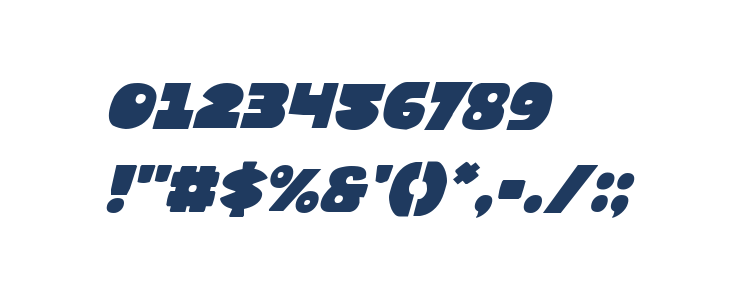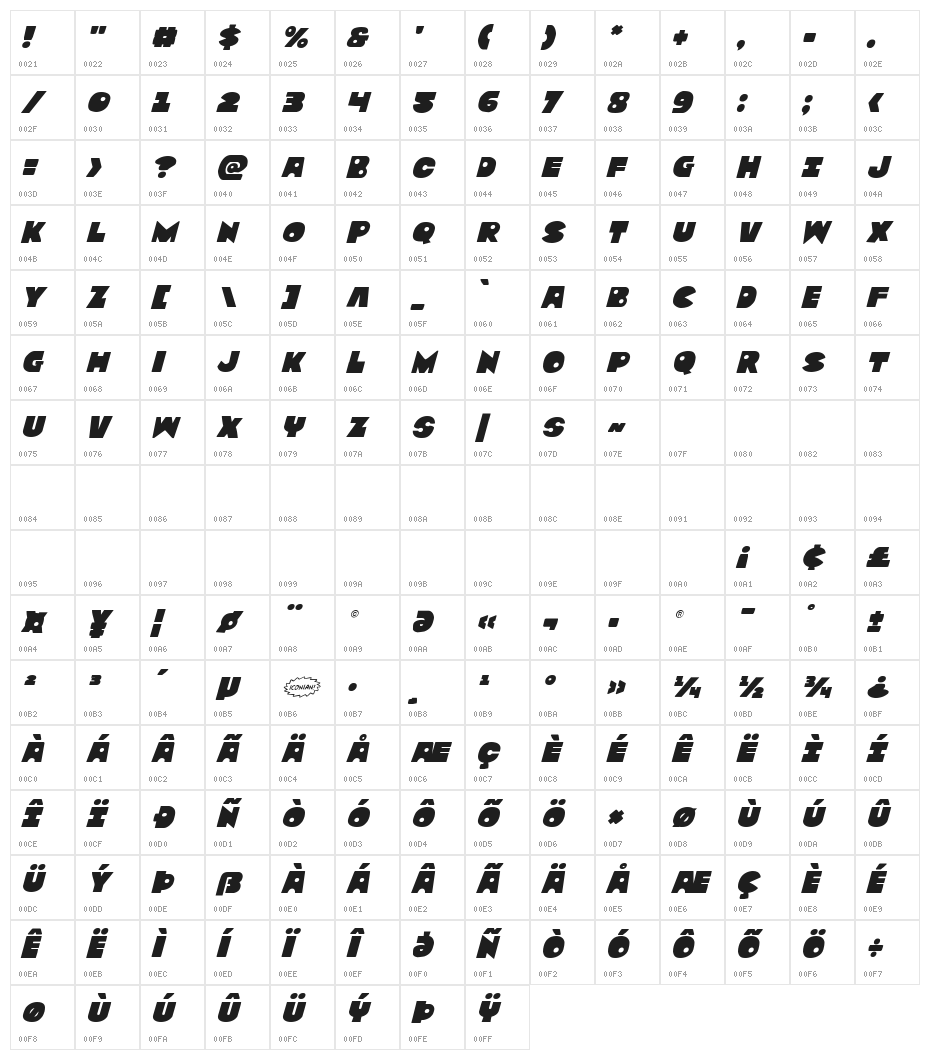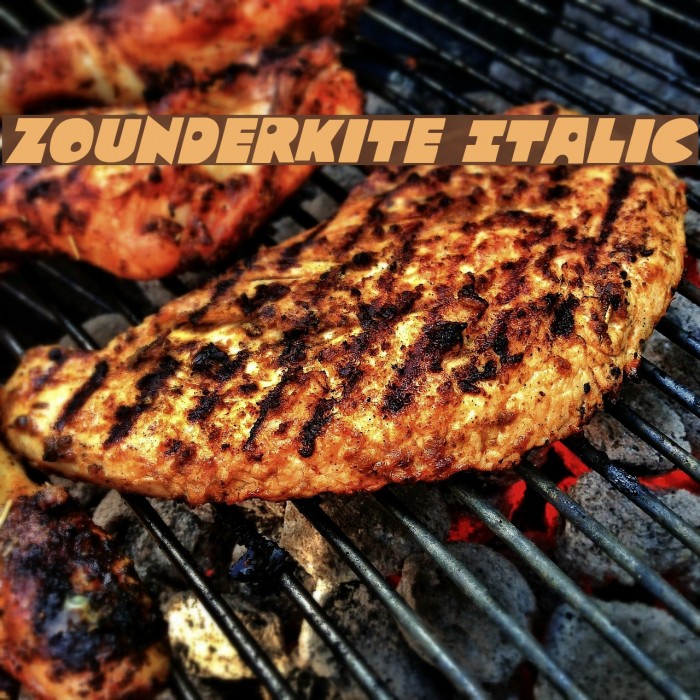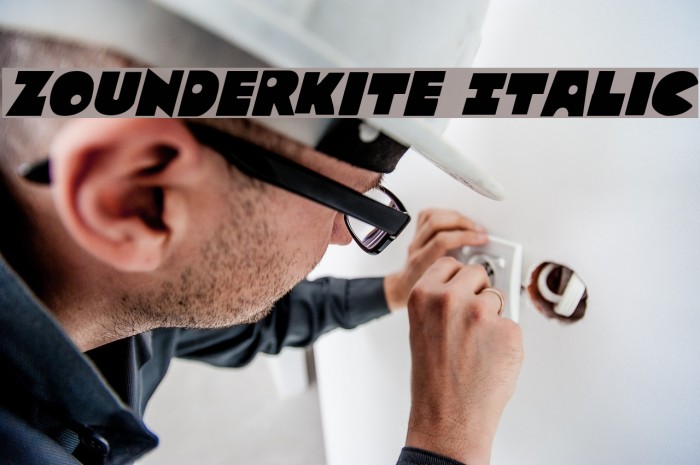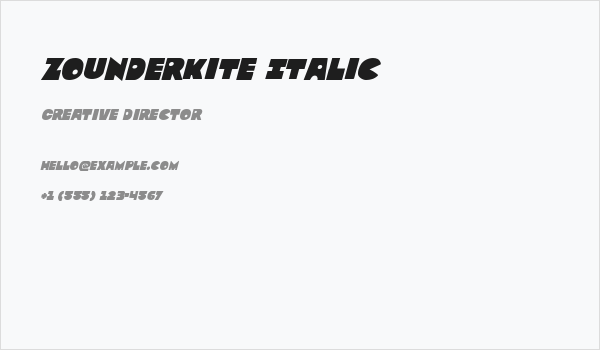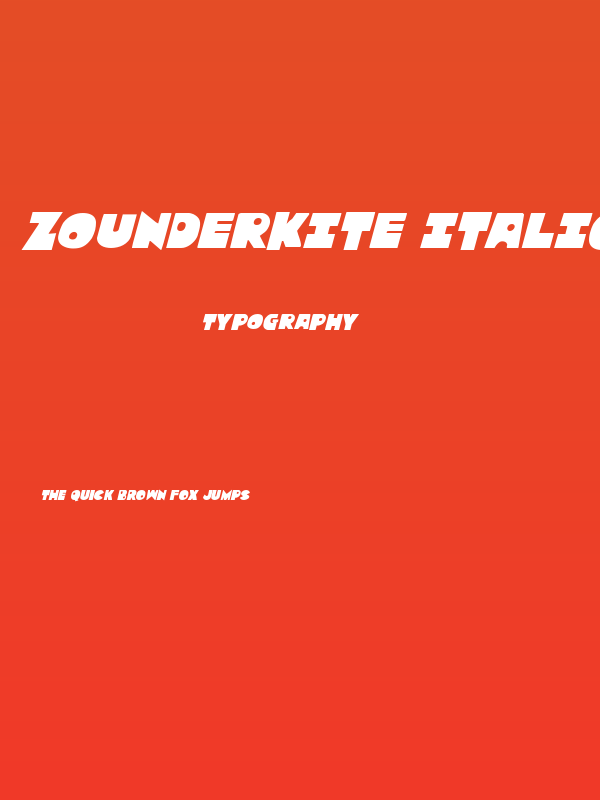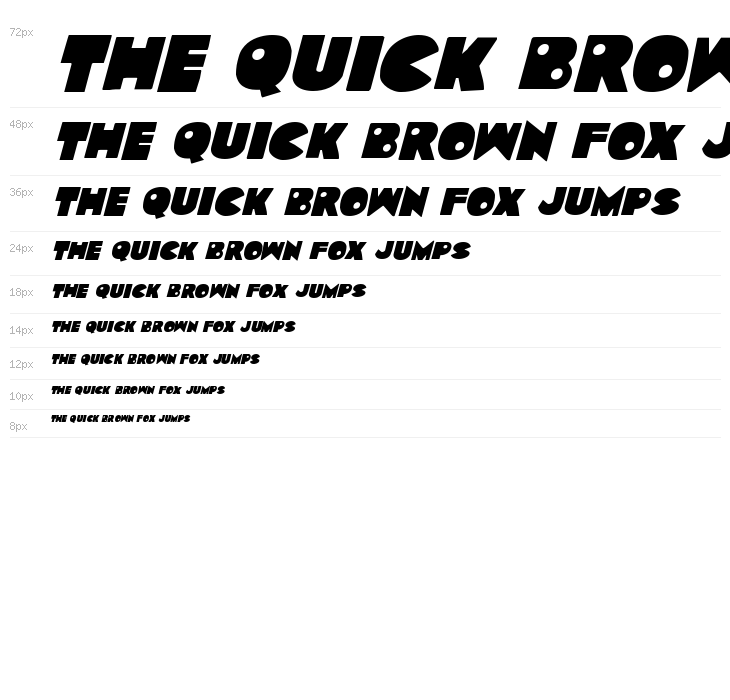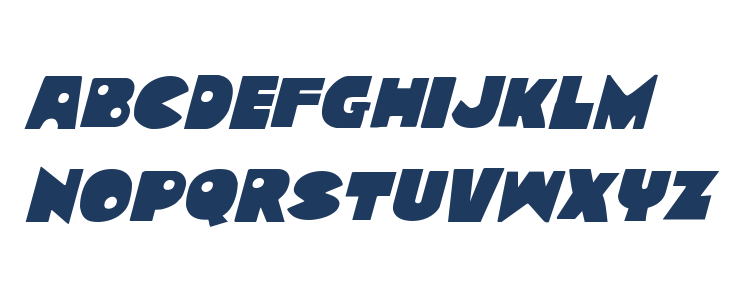
Zounderkite Italic Font
Zounderkite Italic Description
This font features a bold and dynamic style with a strong presence. The characters are heavily weighted, offering a sense of power and impact. The design includes unique geometric shapes and angles, giving it a modern and edgy appearance. The italic slant adds a sense of motion and energy, making it stand out in any design. The uppercase and lowercase letters maintain a consistent style, with rounded edges and sharp cuts that create a visually striking effect. Numbers and special characters are equally bold, ensuring uniformity across all text elements.
| Proposed Projects | Ideal for sports branding, dynamic posters, modern advertisements, and eye-catching headlines. |